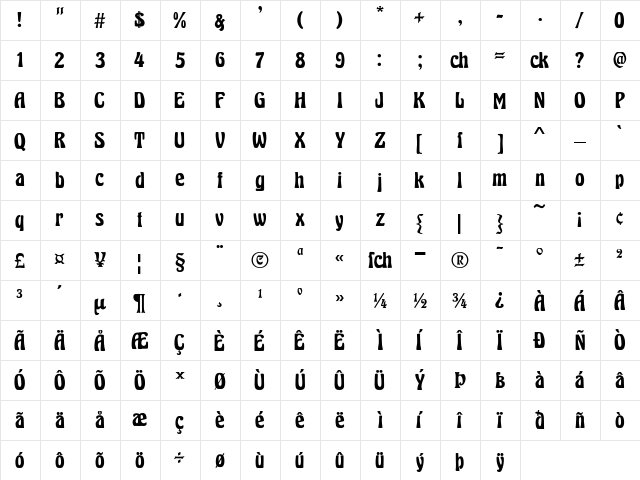
Herkules Regular
| Foundry | Typographer Mediengestaltung |
| Designer | Digitized by Dieter Steffmann, Kreuztal |
Design Context for Herkules Typeface
Herkules is a composed and adaptable typeface that performs quietly and consistently across a wide range of design contexts.